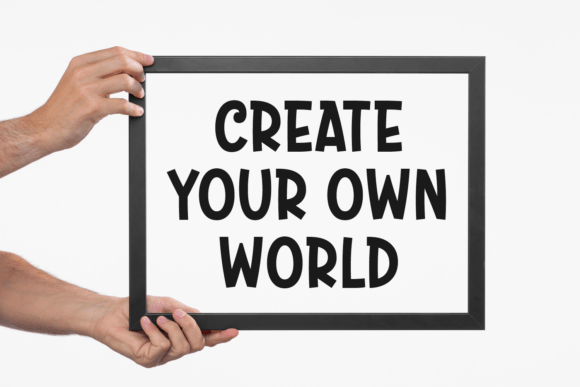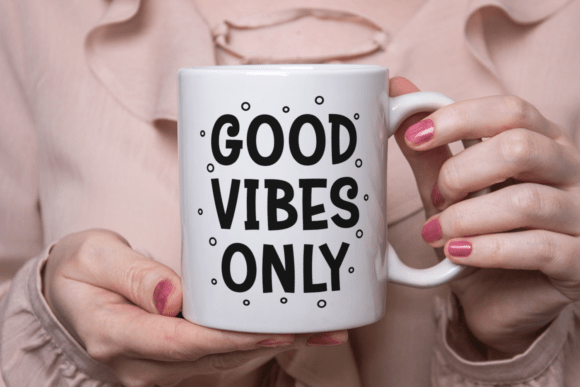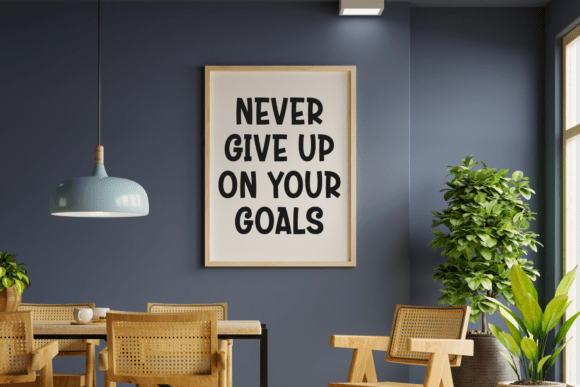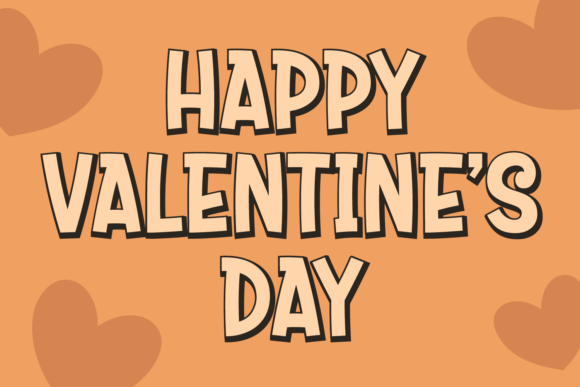
Introduction to Cheek Barbie Font
Cheek Barbie is a cute and charming display font.
Whimsical and playful vibe thatโs perfect for Valentine cards, vacations, kids, and festive occasions Its single line modern appeal perfectly captures the essence of holiday joy, making it an excellent choice for school or children related projects.
Key Features of Cheek Barbie Font
Why Choose Cheek Barbie Font?
Cheek Barbie Font offers exceptional quality and versatility, making it a valuable addition to your design toolkit. Whether you’re creating for personal projects or commercial use, Cheek Barbie Font delivers professional results.